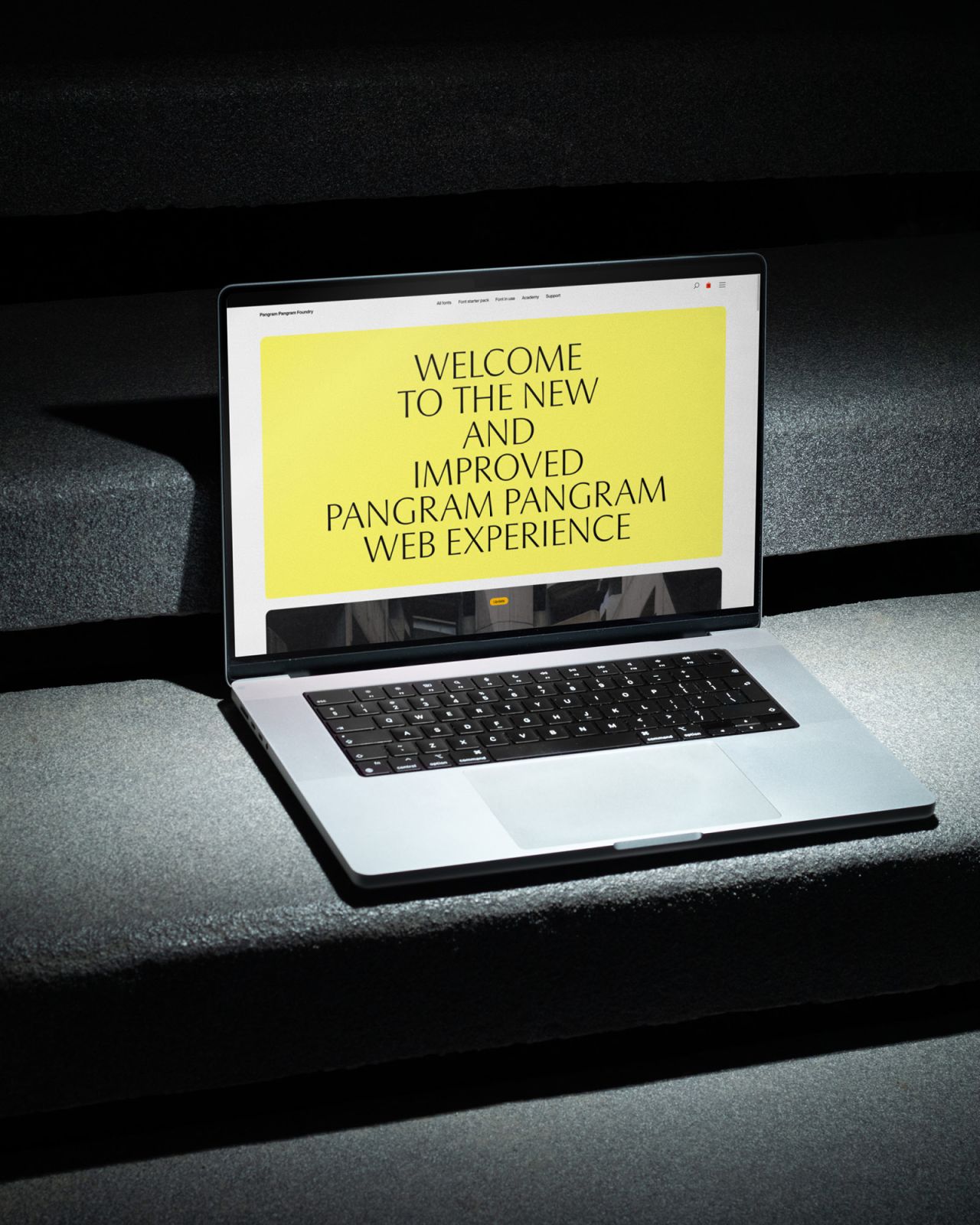
Pangram Pangram's new website puts its typefaces centre stage with a refined, editorial-inspired redesign
Award-winning foundry Pangram has launched a new online platform to elevate its type collection and foster a thriving community centred on design storytelling.
Pangram has unveiled a new website that aims to do more than simply sell fonts. The Montreal-based type foundry, known for its modern and meticulously crafted typefaces, has rebuilt its platform from the ground up, prioritising a smoother, more intuitive user experience while letting the fonts themselves take the spotlight.
While Pangram Pangram's previous site attracted awards and praise for its striking design, Matt Desjardins, founder of the foundry, explains it had outgrown its purpose. "Even though our old site had its moment – it won awards, people loved the look – it just didn't keep up with where the foundry was heading," Matt says.
As Pangram Pangram's library expanded, the community consistently raised feedback that, while the old site looked beautiful, it was tricky to navigate and test the growing range of styles. The redesigned website addresses this head-on, rethinking how people discover, test, and license fonts in a way that feels as premium and considered as the typefaces themselves.
"The goal was to completely rethink how people explore fonts, learn about them, test them, and ultimately license them," Matt explains. "It had to feel just as premium and crafted as the typefaces themselves."
At first glance, the site feels pared back and elegant, yet still distinctly Pangram Pangram. That balance was crucial to the design process. "The idea was: let the fonts speak," Matt says. "So the site needed to be minimal and unobtrusive, no clutter, no distractions, but still feel like us." Subtle moments of personality – from playful transitions to micro-animations – create just enough warmth without overshadowing the type.
Matt references Dieter Rams' philosophy of "as little design as possible" as an anchor for the creative approach. By reducing visual noise, the new site becomes a canvas that allows Pangram Pangram's fonts to shine, drawing users deeper into the foundry's world.
Interestingly, the redesign also draws from unexpected sources beyond pure digital design. Matt points to editorial influences as a key reference, blending modernist grid systems with a magazine-inspired sense of rhythm and hierarchy.
"There's a rhythm to the layout that reflects that," he says. The result feels sophisticated, borrowing from high-end branding and product storytelling to create a curated, almost gallery-like feel.
From a functionality perspective, Pangram has put a real emphasis on usability. The browsing experience is now more robust and scalable, with enhanced filters, search tools, view modes, and sorting capabilities to help users navigate the expanding library with greater ease. Font pages themselves have been fully reimagined, showcasing far more detailed specimens, alternate glyphs, features, and inspiring usage ideas.
The evolution doesn't stop at functionality, though. The new site also strengthens Pangram Pangram's mission to nurture a wider design culture. Its growing Journal, now called the Academy, is positioned as a space for storytelling, inspiration, and education.
"Fonts are tools, yes, but they're also part of a much bigger conversation," Matt says. Through the Academy, Pangram can explore designer stories, behind-the-scenes processes, and wider cultural conversations around typography.
Alongside this, the expanded Fonts in Use section celebrates work from across the creative industry that leverages Pangram typefaces, serving up a fresh dose of community inspiration. As Matt puts it, the aim is to build a true platform, not just a shop window: "We want Pangram to be more than just a place to buy fonts. It should be a platform for education, inspiration, and community."
For a foundry whose typefaces already feel thoroughly contemporary and accessible, the new website feels like a natural next step: a place where creative minds can not only discover great type but also take part in a wider, evolving conversation about design. Pangram has set out to build a more meaningful bridge between its craft and its community, and with a platform as thoughtfully designed as its fonts, it's well on its way.